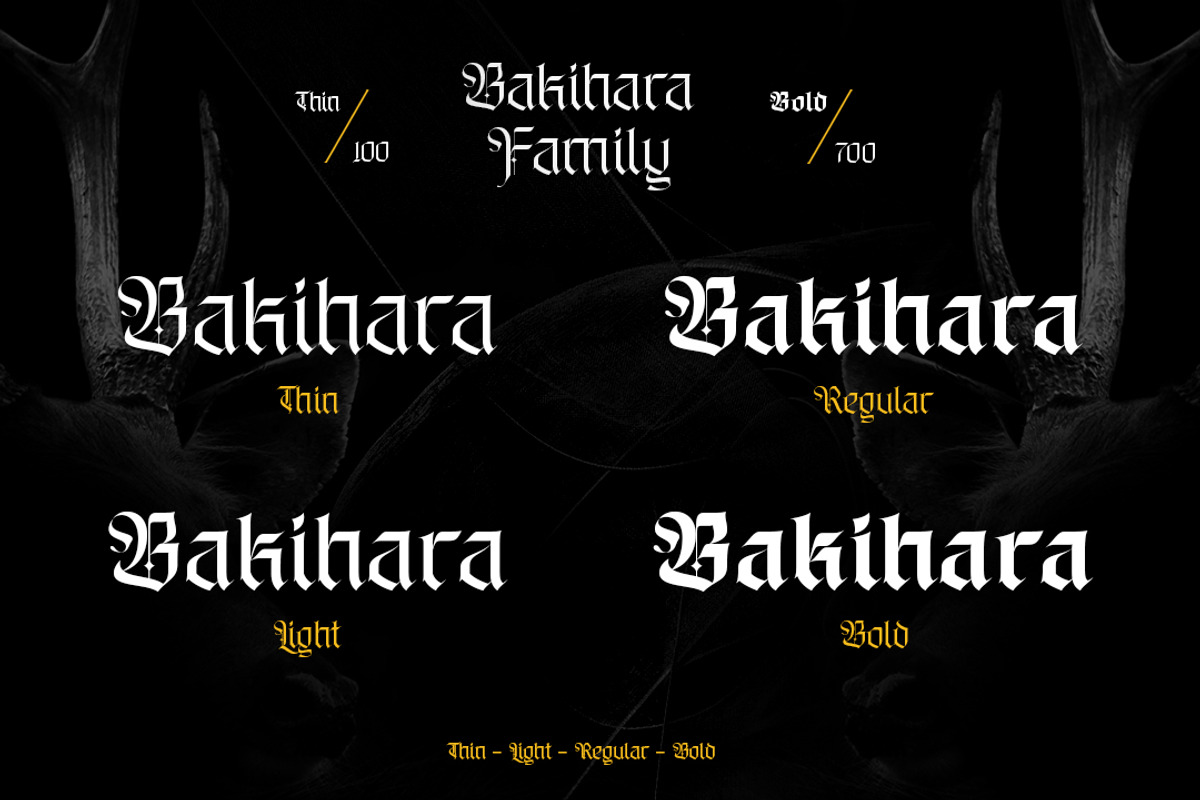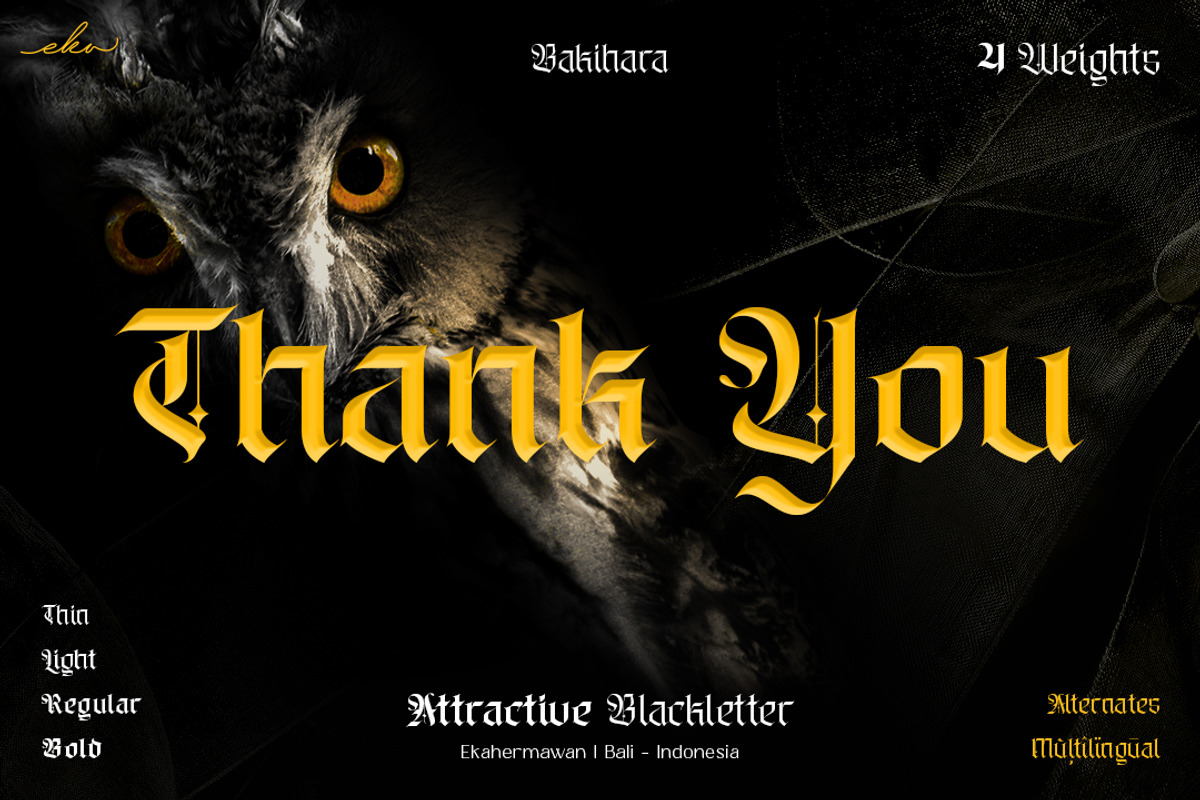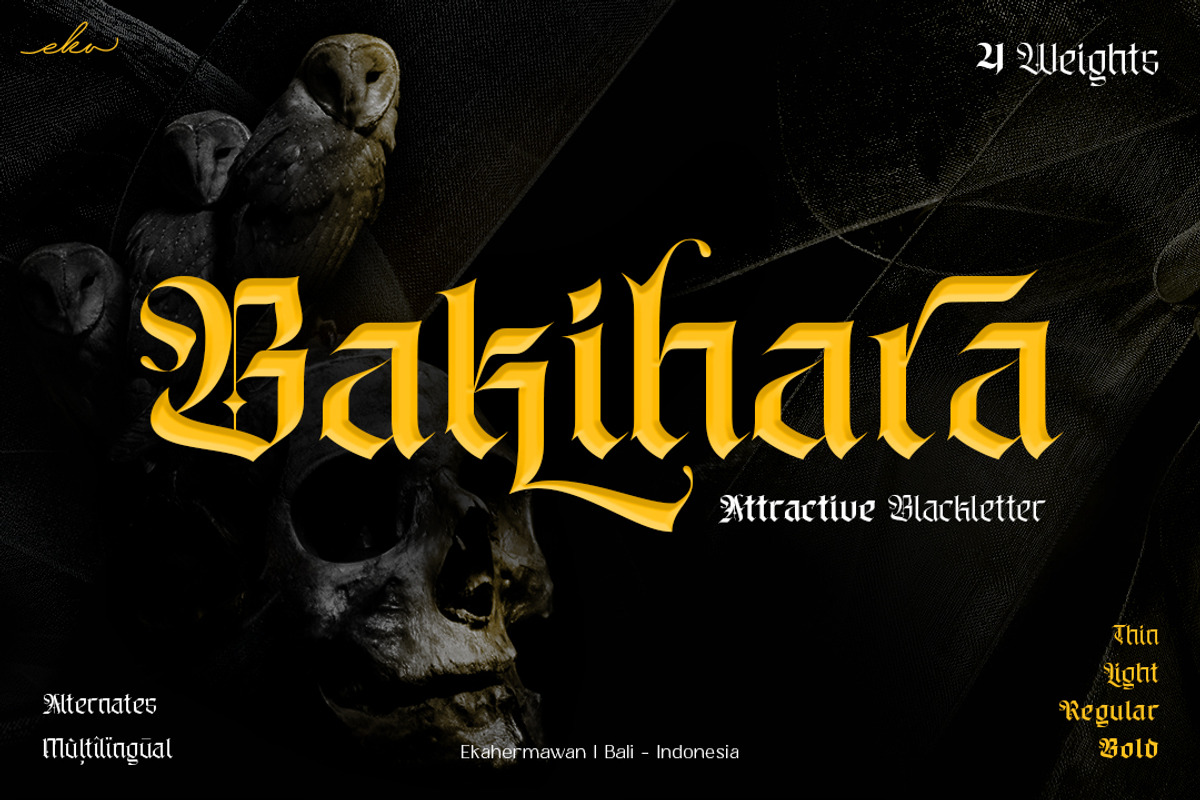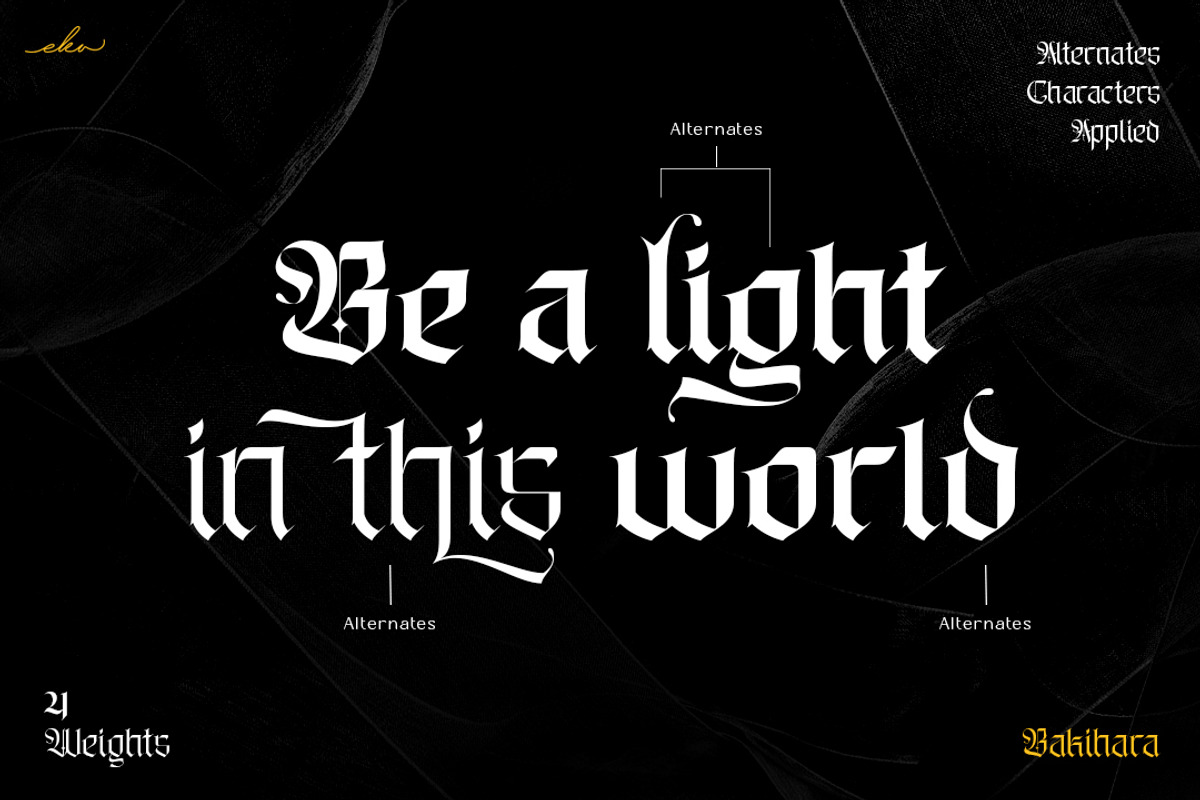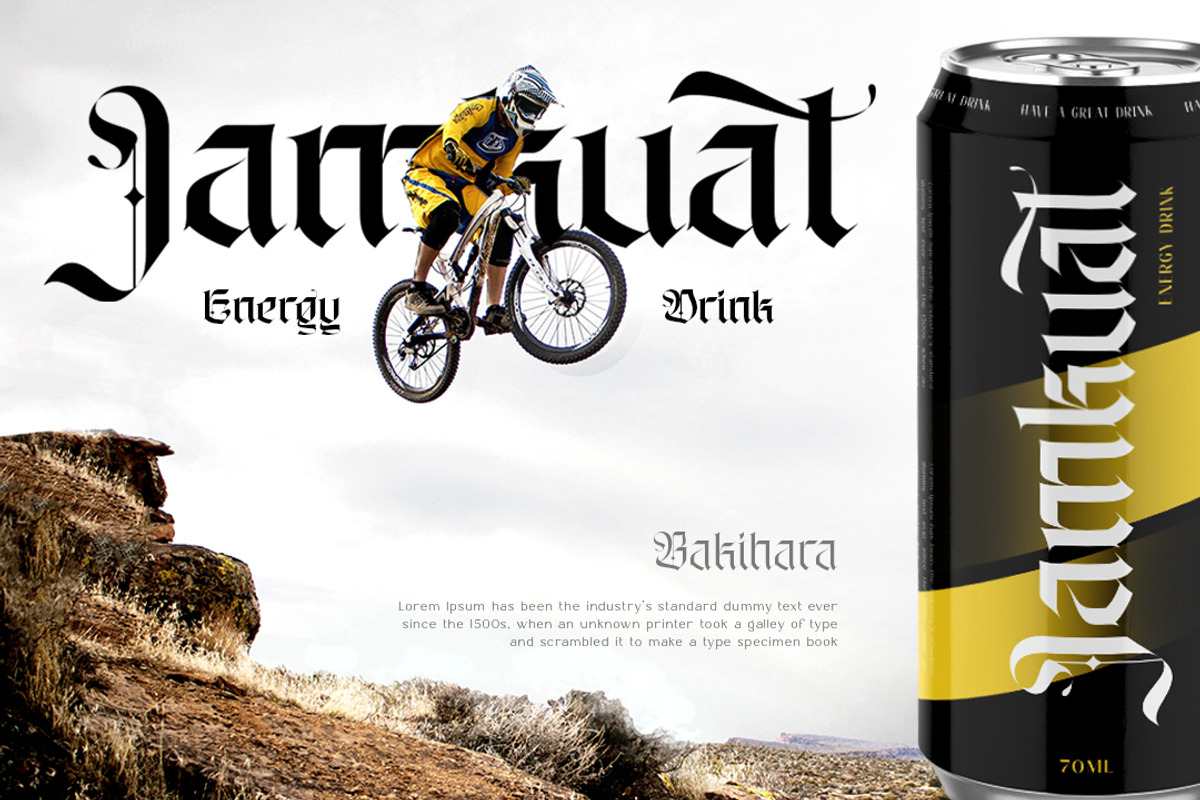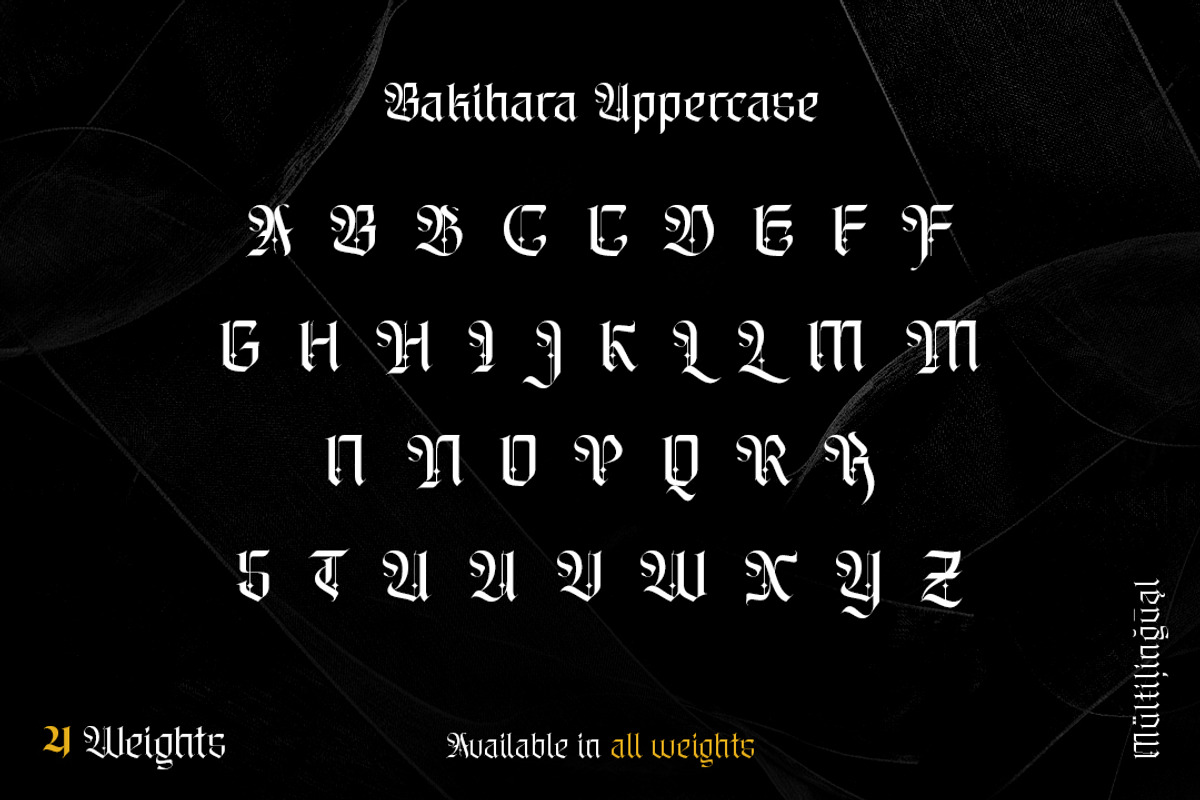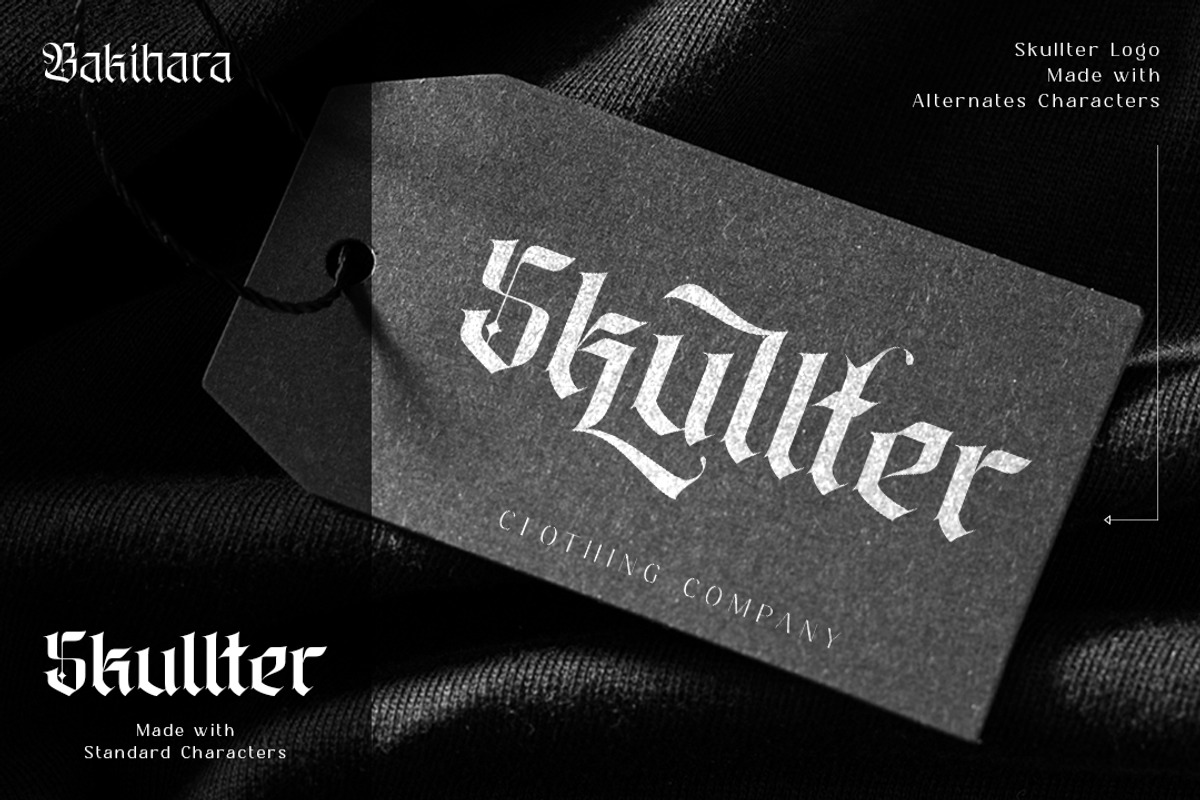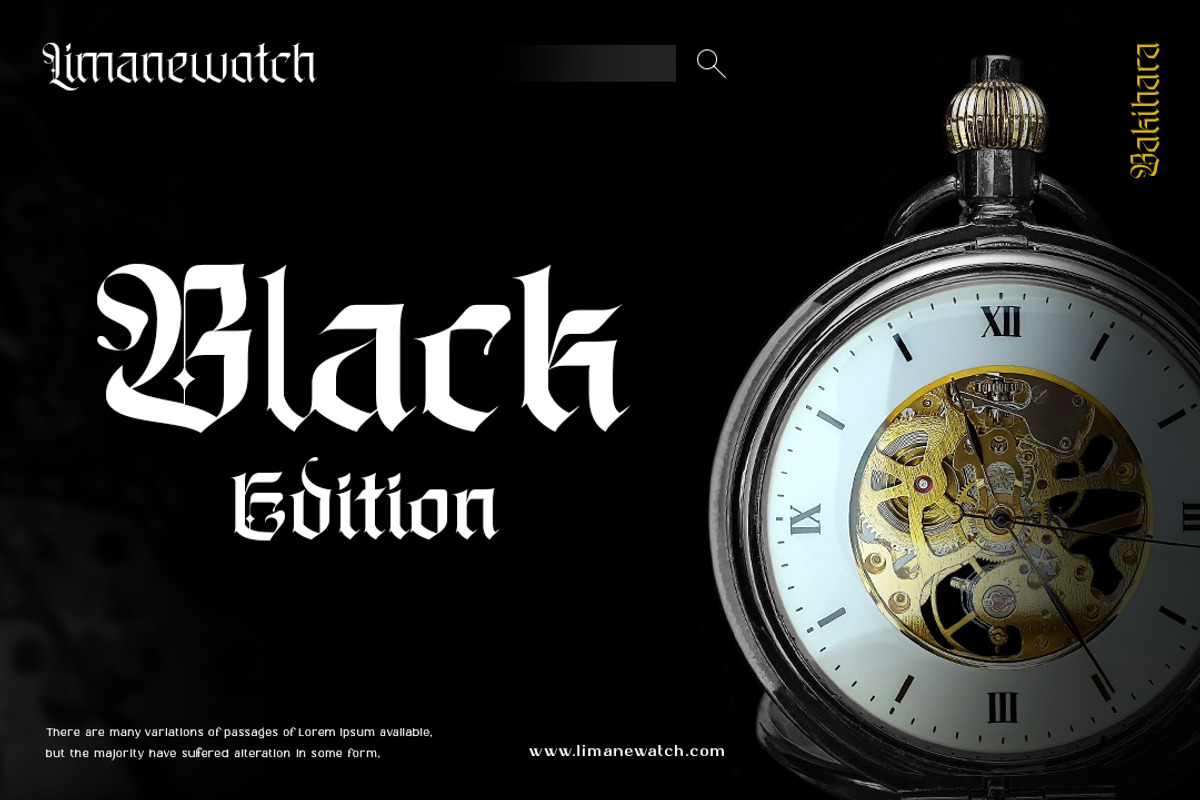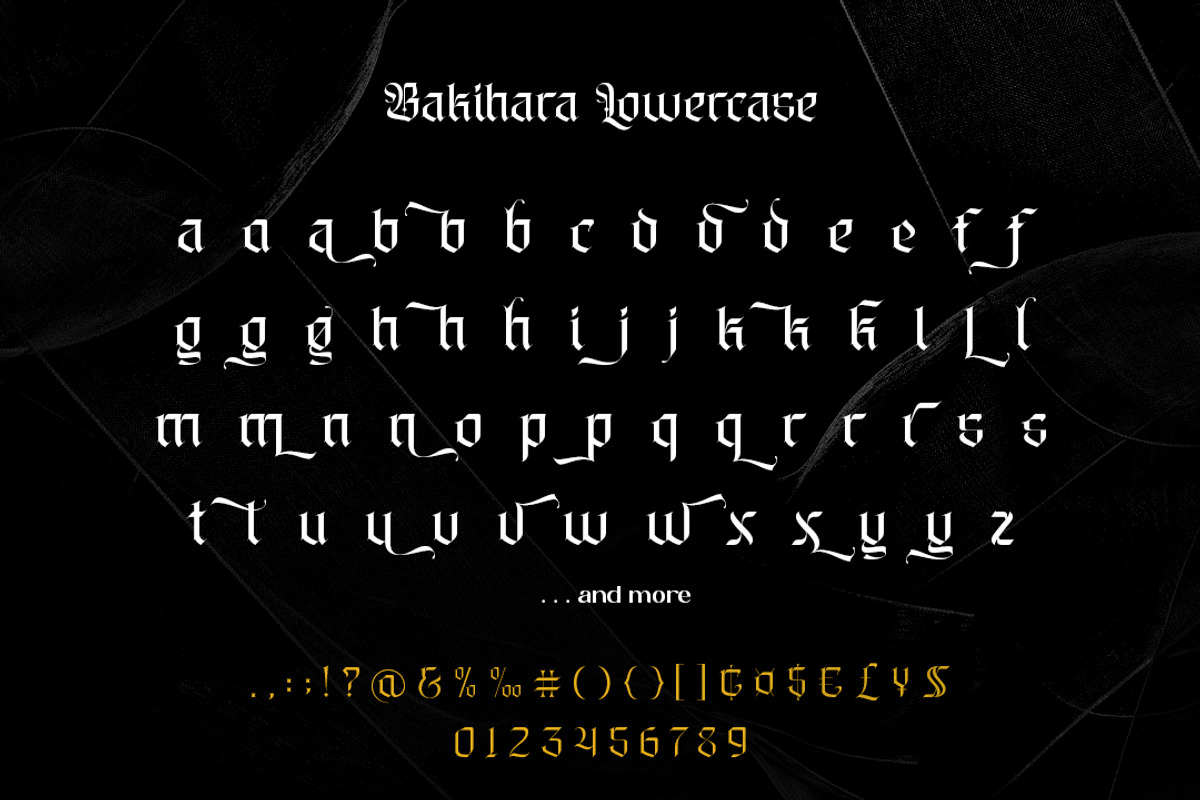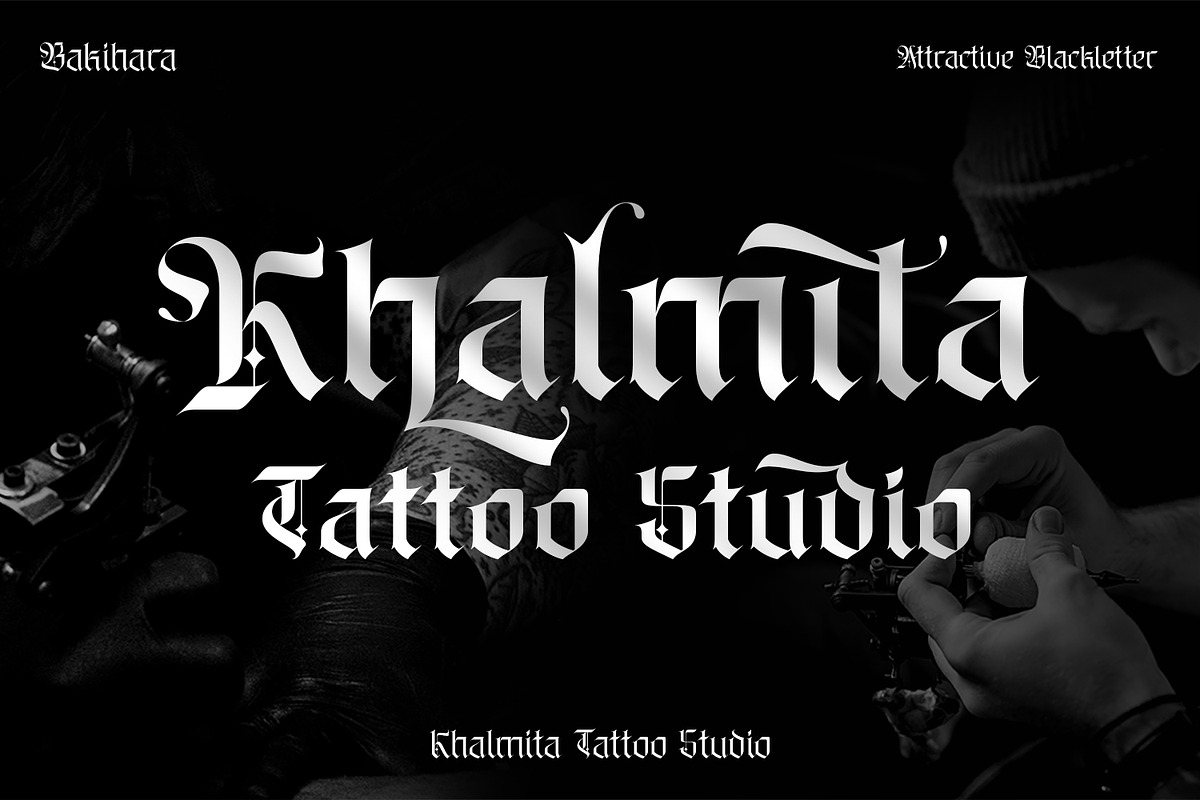
Bakihara - Blackletter Font Family
Introducing Bakihara is an attractive blackletter family with a full set of uppercase and lowercase characters, alternates characters, ligatures characters, multilingual support, currency figures, numerals and punctuation. Bakihara comes with 4 weights from Thin to Bold that will support your creativity in creating perfect designs for various projects such as logo design, branding, posters, magazines, labels, merchandise, invitations, advertisements, tattoos, clothing, music events, and many more project with a Gothic theme.